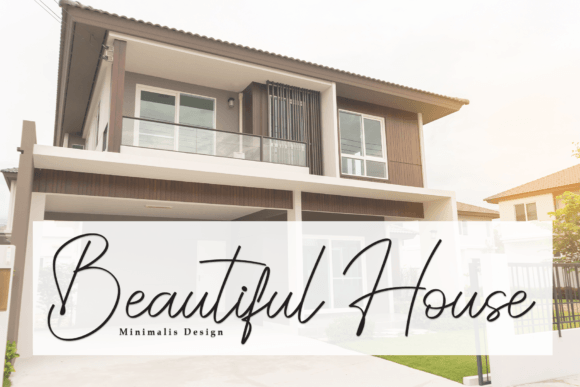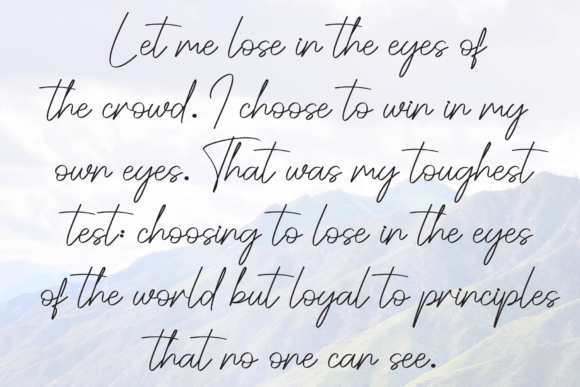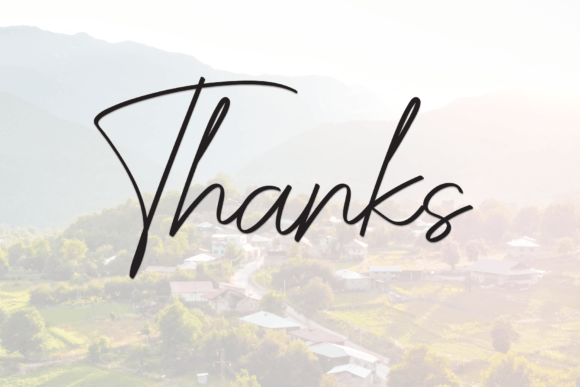
Introduction to Beautiful Rustic Font
Remember that moment when you stumble upon the perfect font to elevate your design project? The one that makes everything click, and you can’t wait to see your idea come to life? For many designers, that moment is what Beautiful Rustic Font is all about.
With its natural, handwritten style, Beautiful Rustic Font is the perfect addition to any creative project. Whether you’re working on a branding project, a wedding invitation, or a simple social media post, this font is sure to add a touch of warmth and personality. Its high quality and unique style make it a valuable resource for designers looking to stand out from the crowd.
Key Features of Beautiful Rustic Font
- High-quality, handcrafted design with unique characteristics, perfect for creative projects.
- Comes in a transparent background option, allowing for seamless integration into various design elements.
- Features a resolution of 300 DPI, ensuring crisp and clear typography in print and digital applications.
- Designed to evoke a sense of warmth and coziness, making it ideal for rustic, vintage, or country-themed projects.
- Includes a range of font sizes and styles, from small captions to large headlines, to cater to diverse design needs.
Honest Review: Beautiful Rustic Font
I recently had the chance to work with the Beautiful Rustic Font, and I must say it’s been a delightful experience. This font is perfect for any creative project that requires a touch of warmth and elegance.
- ✨ High quality: The Beautiful Rustic Font is incredibly detailed and well-designed, making it a great addition to any project.
- ✨ Transparent background: The font’s transparent background makes it easy to use with any image or design, giving you complete creative control.
While the Beautiful Rustic Font is an excellent resource, there are a few limitations to keep in mind:
- ⚠️ Limited language support: Unfortunately, the font only supports a limited number of languages, which may be a drawback for some designers.
- ⚠️ Not ideal for small text: Due to its ornate design, the Beautiful Rustic Font may not be the best choice for small text or titles.
Overall, I’m thoroughly impressed with the Beautiful Rustic Font. Its high quality, free download, and transparent background make it an excellent design resource. While it may have some limitations, I highly recommend it for any creative project that requires a touch of elegance and sophistication.
For a high-quality design, use the Beautiful Rustic Font on a transparent background to create a unique and eye-catching effect. Experiment with different font sizes and colors to find the perfect combination for your creative project.
The Beautiful Rustic Font is perfect for designing wedding invitations, greeting cards, and other paper crafts. It’s also great for creating a vintage or rustic look in your design projects.